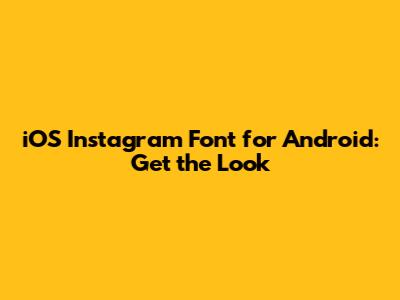
- Find a Reputable Font Generator Website: As mentioned, do a quick Google search for "Instagram font generator" or "Unicode text generator." Stick to well-known sites like LingoJam, IGFonts.io, or Font-Generator.net. Avoid clicking on suspicious links or ads.
- Enter Your Text: Once you're on the website, you'll see a text box. Type in the exact text you want to convert – this could be your Instagram bio, a specific caption, or even a comment you plan to leave. Be sure to double-check for any typos before you start generating.
- Generate and Browse Styles: After typing your text, the website will automatically (or with a click of a button) display various stylized versions of your input. Scroll through the different options. You’ll see a wide array of styles, from cursive and script fonts to bold, italic, and even more decorative or unique Unicode characters that mimic iOS fonts.
- Select and Copy Your Favorite Font: Found the perfect font? Great! Most generators have a simple "copy" button next to each style. Click it. This copies the stylized Unicode text to your phone's clipboard. Make sure you actually copied it – sometimes you might need to long-press and select "copy" directly from the text field if the button doesn't work.
- Paste into Instagram: Now, head over to your Instagram app. Navigate to where you want to use the text – this is typically your profile bio, but it can also be a caption or even a comment.
- Edit and Paste: Go to "Edit Profile" for your bio. Tap and hold in the bio text field where you want the stylized text to appear, and then select "Paste." If you're doing it for a caption or comment, you'll do the same within that specific text input area.
- Save and Admire: Hit the "Done" or "Save" button in Instagram. Boom! Your text should now appear in the fancy font you chose. Give your profile a refresh or check your post to see the magic.
- Research and Select an App: Head to the Google Play Store and search for "keyboard font generator" or "fancy fonts keyboard." Look for apps with high ratings and tons of positive reviews. Pay attention to recent reviews to ensure the app is still actively maintained and bug-free. Some often-recommended options include apps like "Fonts Keyboard" or "Cool Fonts Text Keyboard," but always do your own research as availability and quality can change. Prioritize apps that clearly state they use Unicode characters and don't promise to actually install fonts into system apps.
- Launch and Explore: Open Instagram (or any other app where you want to type). When the keyboard pops up, look for an icon or a toggle on the keyboard itself that allows you to switch between the standard keyboard and the font styles. This might be a globe icon, a specific font icon, or a long-press action on a key. Experiment with the different font options available within the keyboard interface. You'll usually see categories or a scrollable list of styles.
- Start Typing: Select your desired font style before you start typing. As you type, your text will appear in that chosen font. If you want to switch fonts or go back to your regular keyboard, just use the toggle mechanism provided by the app.
What's up, everyone! Ever scrolled through Instagram and seen those super cool, stylish fonts on your friends' bios or posts and thought, "Man, I wish I could do that on my Android phone"? Well, you're in luck, guys! Today, we're diving deep into how you can snag that coveted iOS Instagram font look right on your Android device. It's all about making your profile pop and stand out from the crowd, and trust me, it's easier than you think. We'll be exploring methods that don't necessarily require you to download some sketchy APK, but rather leverage existing tools and clever tricks to get that aesthetic you're after. So, ditch the basic text and let's get creative with your Instagram presence. We'll cover everything from understanding how these fonts actually work to the best apps and techniques to achieve that sleek, modern, and sometimes quirky font style that iOS users often flaunt. Get ready to transform your Instagram bio and captions into works of art, making your feed undeniably more engaging and visually appealing. This isn't just about changing text; it's about enhancing your personal brand and communication style online. Let's get started on making your Android Instagram experience just as stylish as any iOS device!
Understanding Instagram Fonts and How They Work
Alright, let's get down to the nitty-gritty of how these Instagram fonts for Android actually function. It's not magic, guys, it's clever coding! When you see those fancy fonts on Instagram, especially in bios, they aren't actually changing the font file on your device. Instead, what's happening is that these fonts are created using Unicode characters. Think of Unicode as a massive, universal character set that includes standard letters, numbers, and symbols, but also a whole bunch of special characters and variations that look like regular letters but are technically different. So, when you copy and paste text from a special font generator website into your Instagram bio, you're actually pasting these unique Unicode characters that Instagram's platform can display. Your Android phone, or even an iPhone, just renders these characters as they are. The reason why you see them more commonly on iOS is often because users there have had easier access or greater awareness of these tools for a longer time, but the technology is available to everyone. So, for us Android users, the goal is to find a reliable way to generate these Unicode-based text styles and apply them seamlessly. It’s important to understand this distinction because it means you don’t need a special app that “installs” fonts onto Instagram; you just need a tool that converts your regular text into this special Unicode format. We'll explore some of the best ways to do this without needing to download any potentially risky APKs, focusing on web-based generators and keyboard apps that offer this functionality safely and effectively. This understanding is key to unlocking the full potential of stylish text on your profile and ensuring your messages look exactly how you intend them to, no matter what device someone is viewing them on.